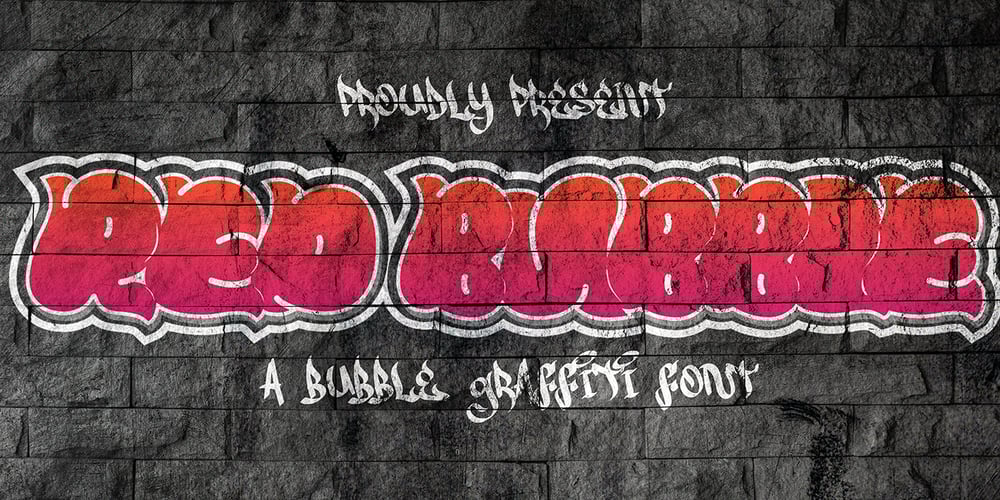
Red Bubble Graffiti Font Family was designed by Sipanji and published by Sipanji21. Red Bubble Graffiti contains 3 styles and family package options. Red Bubble is a spectacular, graffiti styled display font. It will elevate a wide range of design projects to the highest level, be it branding, headings, wall art illustration, apparel, labels, and much more!